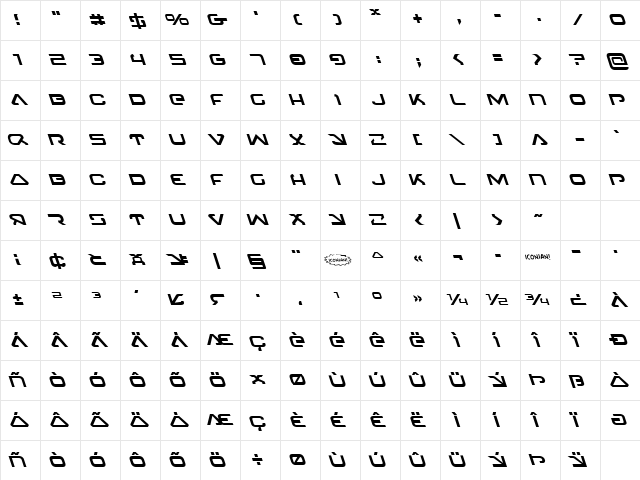
4114 Blaster Leftalic Italic Free Font
4114 Blaster Leftalic Italic
4114 Blaster Leftalic Family
4114 Blaster Leftalic Italic
Design Context for 4114 Blaster Leftalic
4114 Blaster Leftalic is a composed and adaptable typeface that performs quietly and consistently across a wide range of design contexts. The slanted form adds forward momentum and visual energy.
Pro Tip: Use 4114 Blaster Leftalic for emphasis, pull quotes, and subheadings where its slanted energy can add rhythm to the layout.